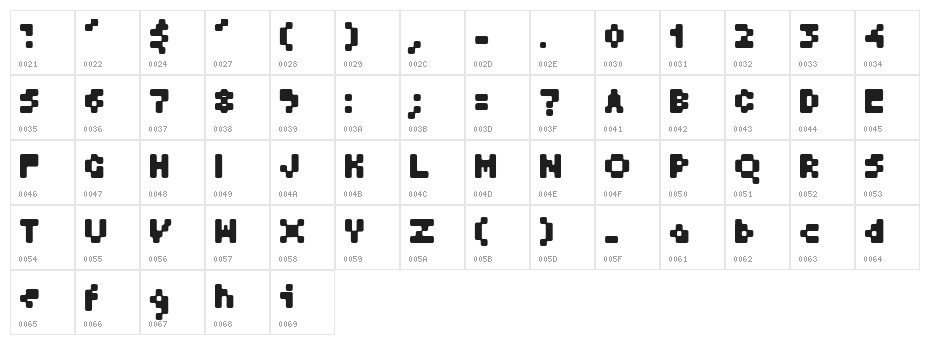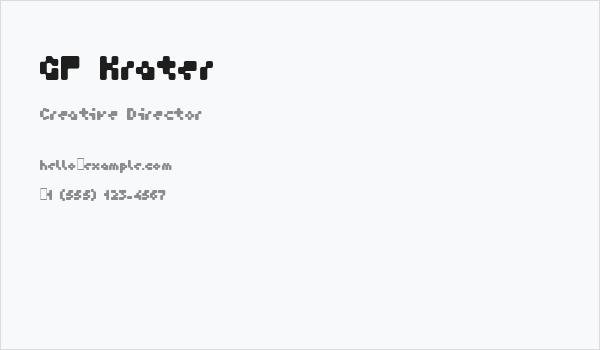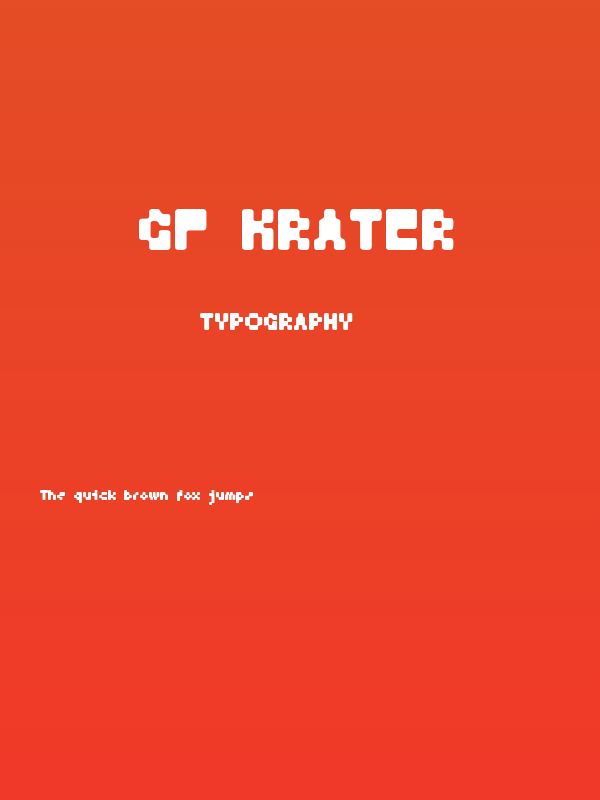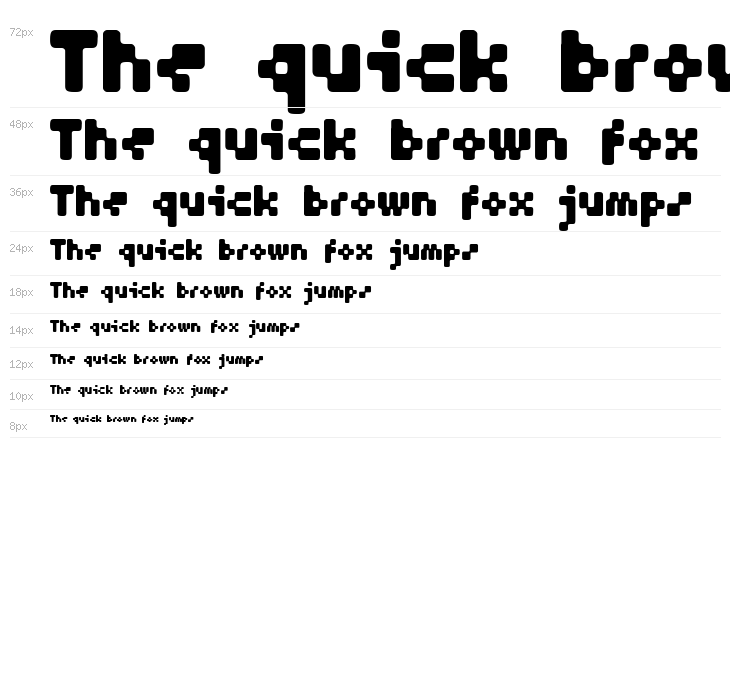
GF Krater Font
GF Krater Description
This font features a bold and geometric design with a distinctly modern and playful appearance. The characters are composed of thick, rounded shapes that create a sense of solidity and impact. Each letterform is crafted with a unique, blocky style that maintains legibility while offering a creative twist. The font's uniform stroke width and lack of serifs contribute to its contemporary feel, making it suitable for eye-catching displays. The numbers and special characters follow the same design principles, ensuring consistency across all glyphs.
| Proposed Projects | Ideal for branding, poster design, video game graphics, and any project requiring a strong visual impact. |